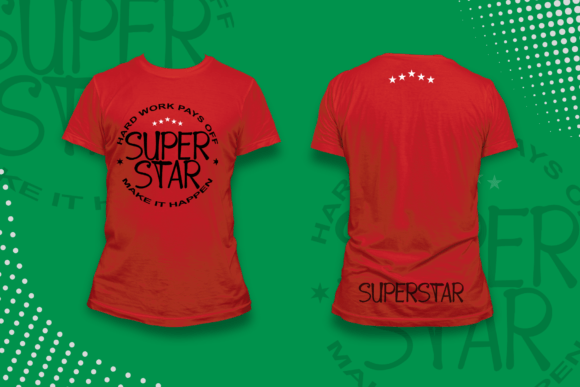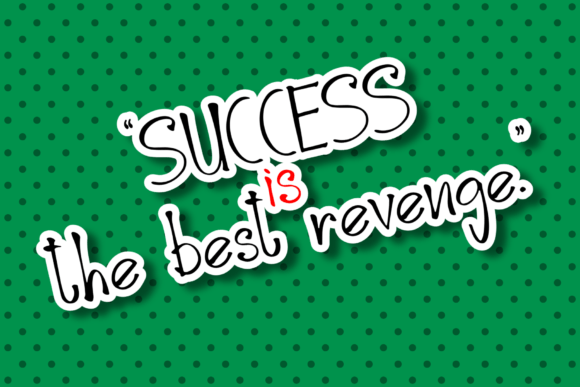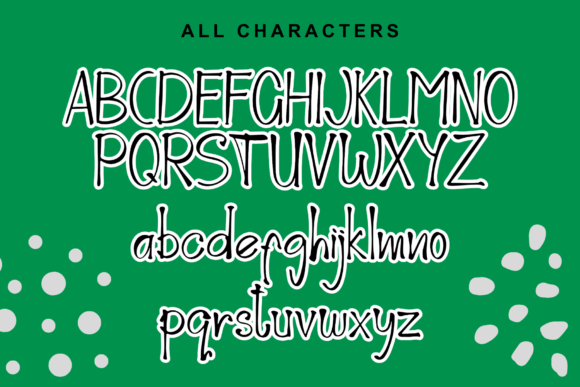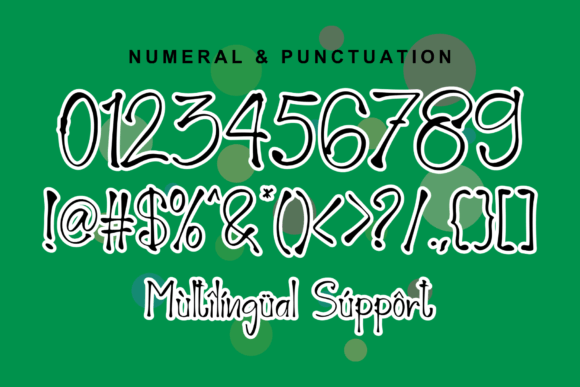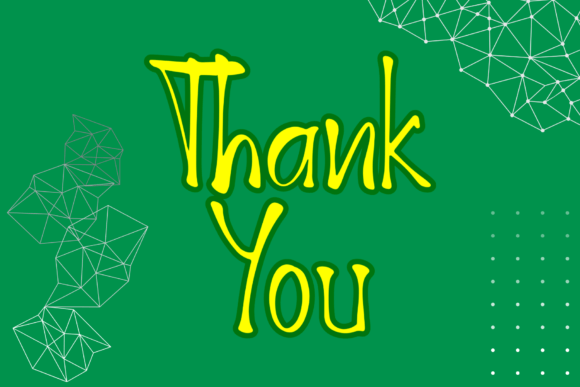
Introducing Cluella Font: The Handwritten Charm for Your Designs
Are you looking for a font that adds a touch of natural elegance to your designs? Look no further than Cluella Font, a gorgeously natural, handwritten font that breathes life into your creations. With its distinct handmade essence, Cluella Font effortlessly elevates your designs, imparting a beautiful organic touch to every detail.
Cluella Font is a versatile font that shines in a host of design environments. Whether you’re creating elegant invitations, book covers, or craft projects, this font is the perfect choice. Its unique, handwritten style adds a touch of charm and rustic elegance to any design, making it perfect for designers and crafters who want to create something truly special.
What Sets Cluella Font Apart
So, what sets Cluella Font apart from other fonts? Here are just a few features that make it a standout:
- Handwritten with love: Cluella Font is a truly handmade font, with each letter and glyph carefully crafted to give it a unique, organic feel.
- PUA encoding: With PUA encoding, all glyphs are within your reach, ensuring a personalized touch that truly caters to your design objectives.
- Natural elegance: Cluella Font has a natural, effortless elegance that makes it perfect for designs that require a touch of sophistication.
Use Cluella Font in a Variety of Design Projects
Cluella Font is a versatile font that can be used in a wide range of design projects, including:
- Invitations: Add a touch of elegance to your invitations with Cluella Font, perfect for weddings, baby showers, and other special occasions.
- Book covers: Give your book cover a unique, eye-catching look with Cluella Font, perfect for fiction, non-fiction, and children’s books.
- Craft projects: Add a personal touch to your craft projects, such as handmade cards, gift tags, and scrapbooking pages.
Why Choose Cluella Font?
So, why choose Cluella Font for your design projects? Here are just a few reasons:
- Unique and charming: Cluella Font has a unique, charming style that’s sure to set your designs apart.
- Easy to use: With PUA encoding, Cluella Font is easy to use and customize, even for designers who are new to handwritten fonts.
- High-quality design: Cluella Font is a high-quality font that’s designed to deliver exceptional results, even at large sizes.
Get Ready to Fall in Love with Cluella Font